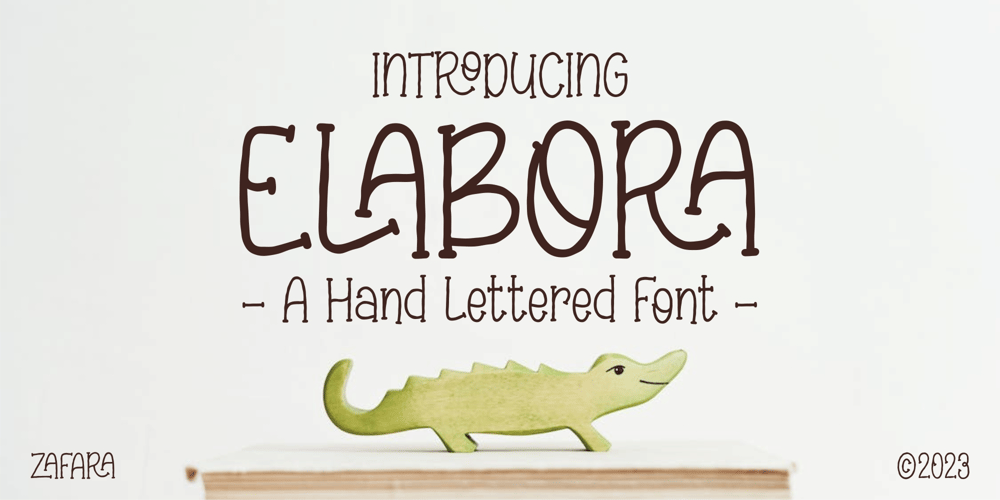
Elabora Font Family was designed by Zohan Nur Muchlis and published by Zafara Studios. Elabora contains 1 styles and family package options. Elabora font is inspired by chalk strokes so it has a rough and textured look. This font is cute and informal or can be serious and academic. This font can be used for classroom materials, children’s books and products, invitations and announcements, website designs, product packaging, and other needs that are suitable for this font.The details:- 203 glyphs: Uppercase, Lowercase, Numbers, Punctuation, Language support- 20 Ligature- Language Support: Danish, English, French, German, Irish, Italian, Portuguese, Spanish, Swedish, & Swiss German.